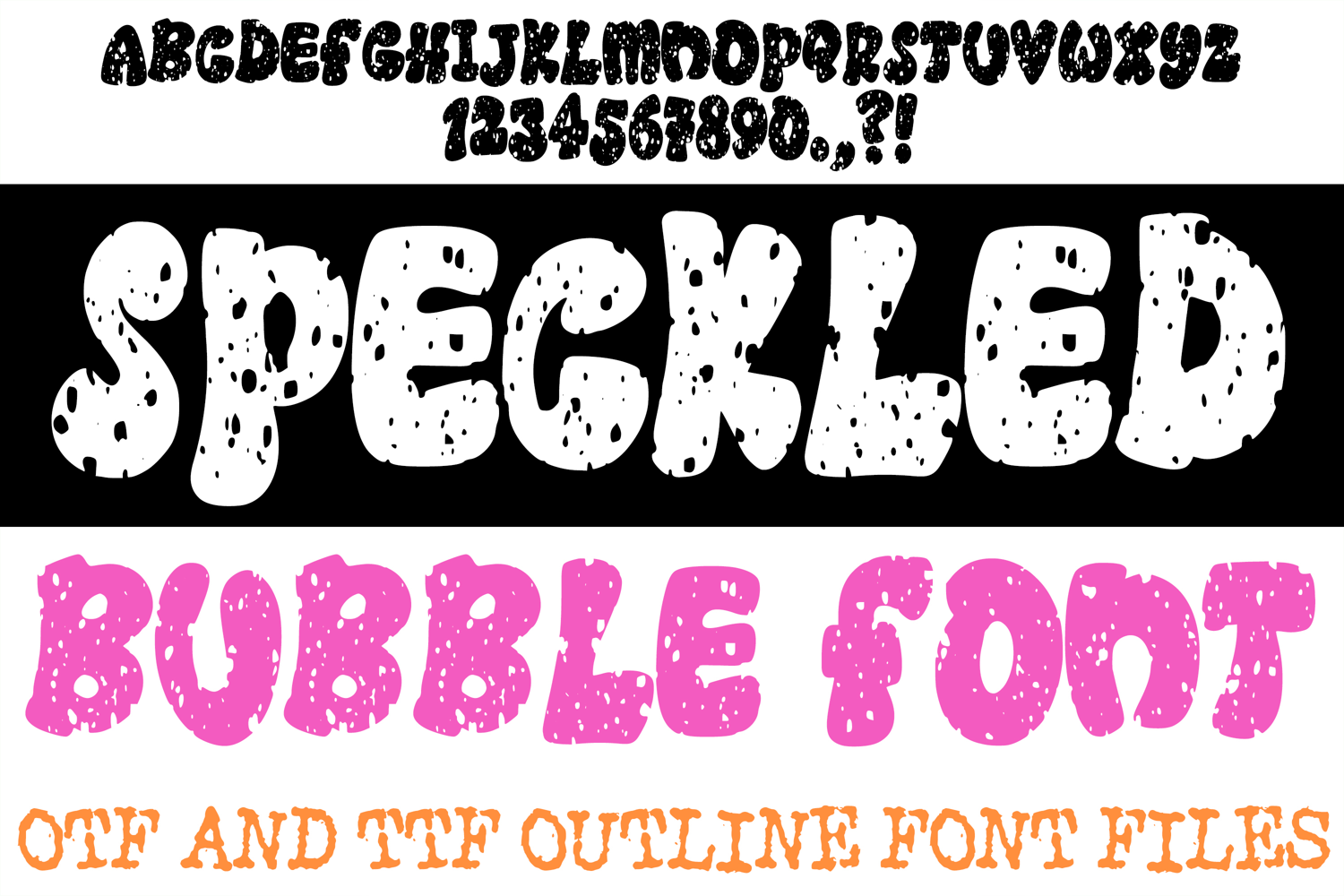
Speckled Bubble Lettering Font Cartoon ABC OTF Type Comic
The Speckled Bubble Font is a high-contrast, hand-drawn display typeface that fuses the playful energy of "bouncy" animation with a raw, "static-noise" grit. Each character features a bold, rounded silhouette filled with a heavy, organic speckle texture reminiscent of weathered asphalt, vintage TV static, or cosmic dust.
Designed for designers and streetwear brands, this font turns simple, cheerful lettering into a distressed, artisanal relic. Whether you are creating lo-fi music covers, grunge apparel, or Cricut craft projects, the high-impact "Midnight Speckle" texture ensures your typography stands out with a modern, edgy aesthetic.